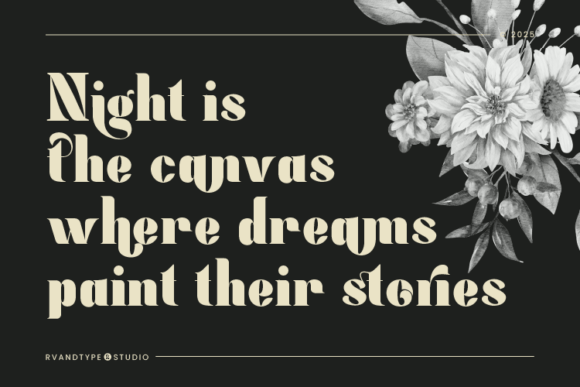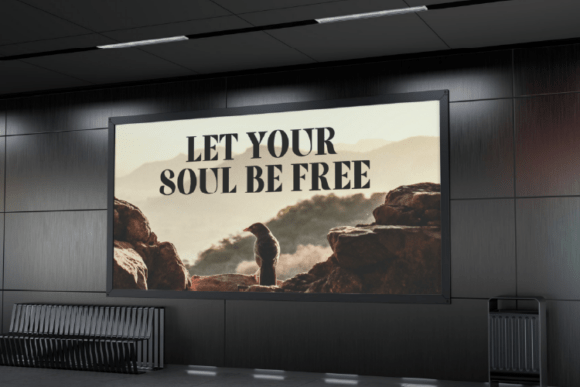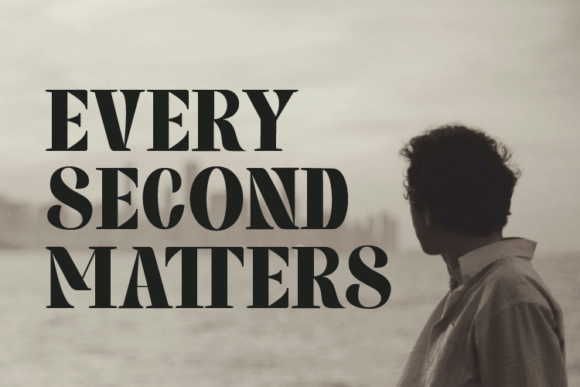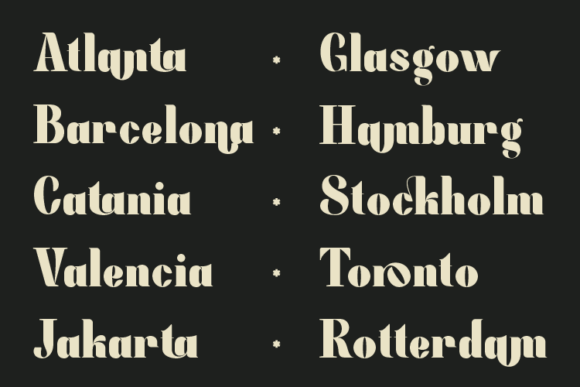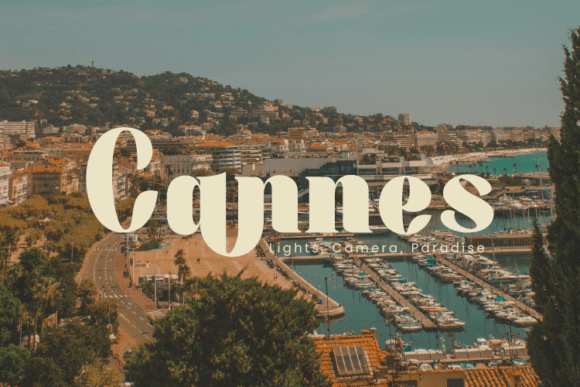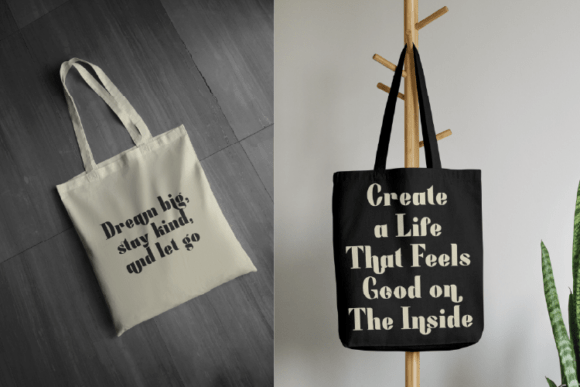
Introduction to Lasthen Font
Remember the thrill of stumbling upon that perfect font that elevates your entire creative project? For many designers, that moment is what makes all the hard work worth it. As you pour over design resources, searching for the perfect high-quality font to give your branding or editorial piece that extra oomph, we’re excited to introduce you to Lasthen Font – a game-changing serif display font that’s about to become your new go-to design companion.
With its effortlessly stylish ligatures and distinctive letterforms, Lasthen Font is the epitome of refined nostalgia, expertly balancing classic charm and contemporary flair. Whether you’re working on a high-profile branding project, creating eye-catching posters, or simply seeking a design resource that’s sure to turn heads, Lasthen Font is an invaluable asset that’s sure to elevate your work to new heights – all available for free download, complete with a transparent background, ready to be customized to your heart’s content.
Lasthen Font
- Unique, modern font with a transparent background, ideal for digital design and printing.
- Includes 6 styles: regular, bold, italic, bold italic, condensed, and condensed bold.
- Designed for use in digital and print media, including logos, branding, and advertising materials.
Honest Review: Lasthen Font
I recently stumbled upon the Lasthen Font and was impressed with its versatility. As a designer, I’m always on the lookout for high-quality design resources to enhance my creative projects. The Lasthen Font definitely fits the bill.
- ✨ Unique design style: The Lasthen Font boasts a distinctive look that sets it apart from other fonts. Its quirky, modern aesthetic makes it perfect for a wide range of creative projects.
- ✨ High-quality font: The Lasthen Font is well-crafted, with crisp lines and a clear, readable font face.
While the Lasthen Font excels in many areas, there are a few limitations to consider:
- ⚠️ Limited character set: The font only includes a basic set of characters, which may not be suitable for all types of projects.
Overall, I’m impressed with the Lasthen Font’s unique design and high-quality construction. While it may not be perfect for every project, it’s definitely worth considering for your next creative endeavor.
The Lasthen Font is ideal for creative projects, such as graphic design, digital art, and print materials. Use it to create engaging headings, titles, and body text for presentations, reports, and resumes. You can also use it to design logos, branding materials, and even social media graphics.
Q: What makes the Lasthen Font a high-quality design resource?
The Lasthen Font is a high-quality design resource due to its clean and modern design, making it suitable for a wide range of creative projects. It also features a transparent background, allowing you to easily place it over images or other design elements. Additionally, the font is carefully crafted to ensure optimal legibility and readability.